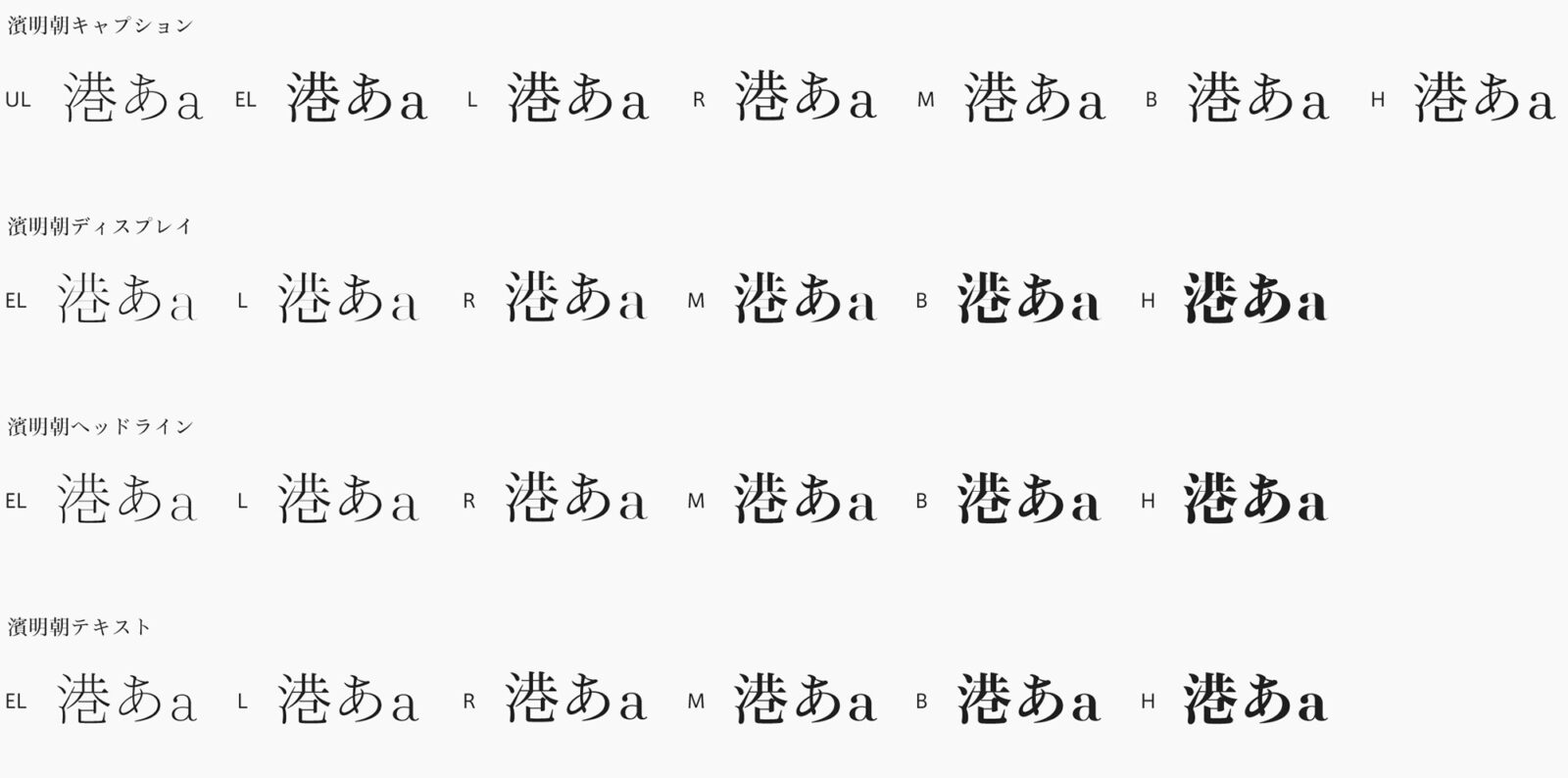
Announcing Hama Mincho crowdfunding
Type Project has announced Hama Mincho crowdfunding. Hama Mincho, city font project for Yokohama, is designed as a family series, with the four categories of Caption, Text, Headline and Display, each of which is available in six weights. Hama Mincho’s design incorporates the scale and distinctive character of the city of Yokohama. Thickness variations have been included while maintaining design consistency, so as to enable use for titles and headings, and to accommodate main text and footnote situations as well. And for styles that accentuate vertical/horizontal stroke contrasts, the usage range extends even further. Thanks to support the Hama Mincho crowdfunding, both mini-sets and full sets will be available for download.